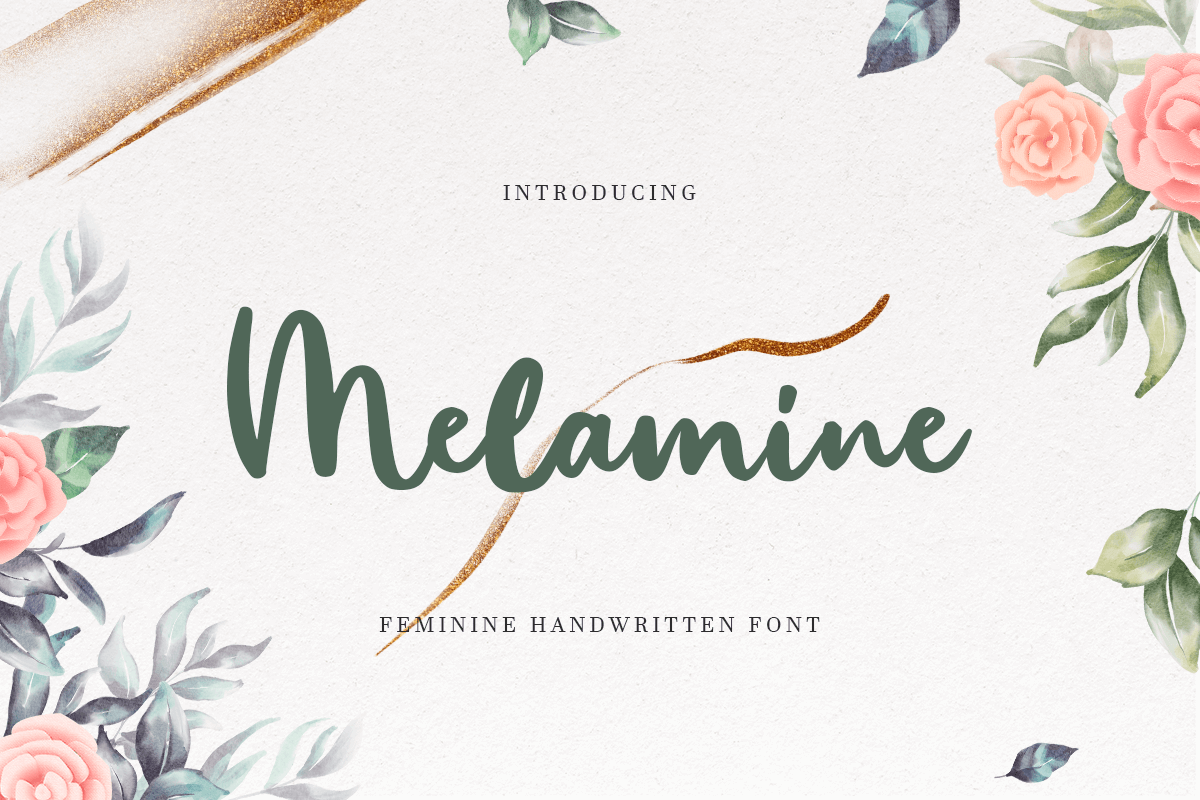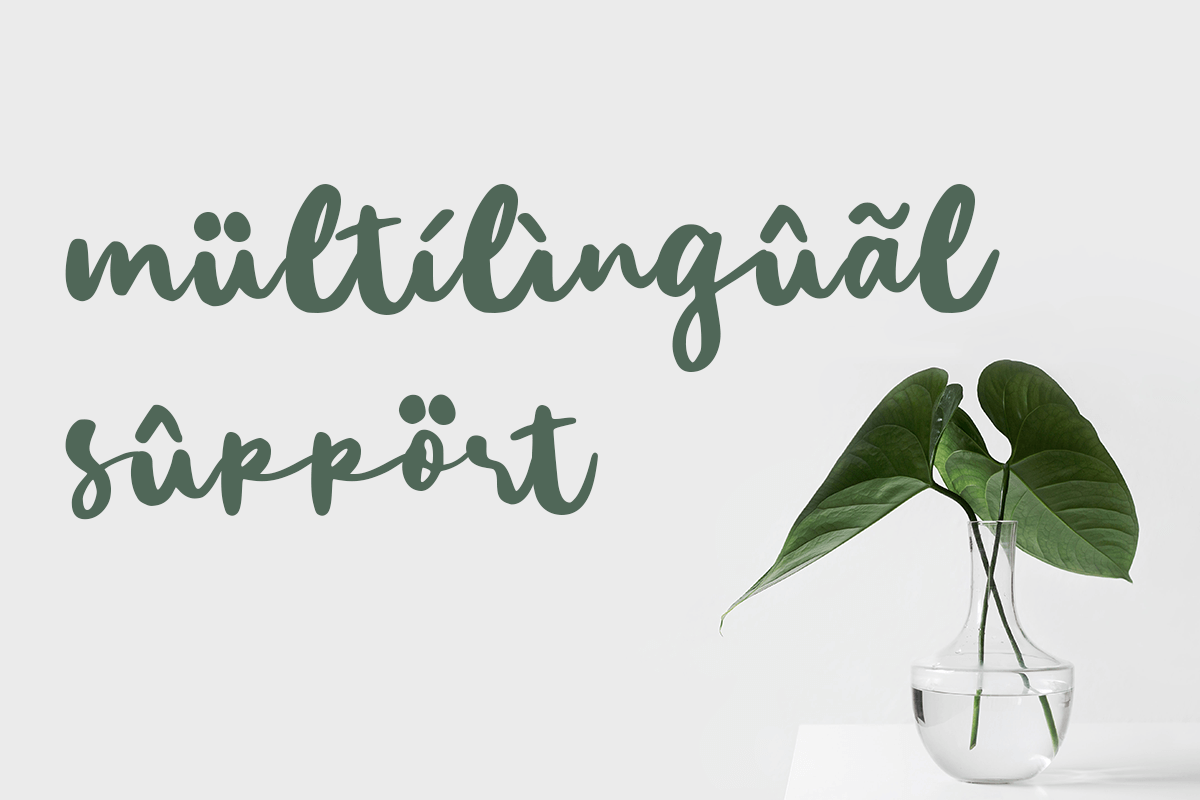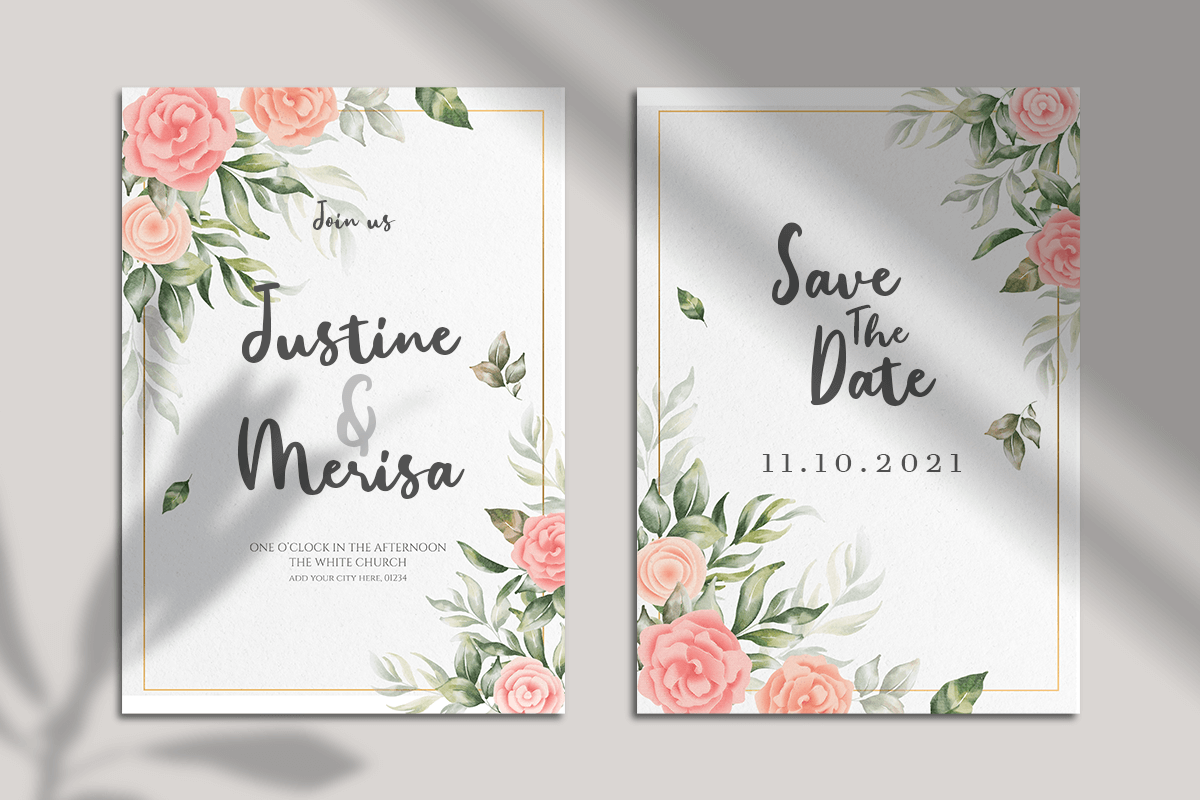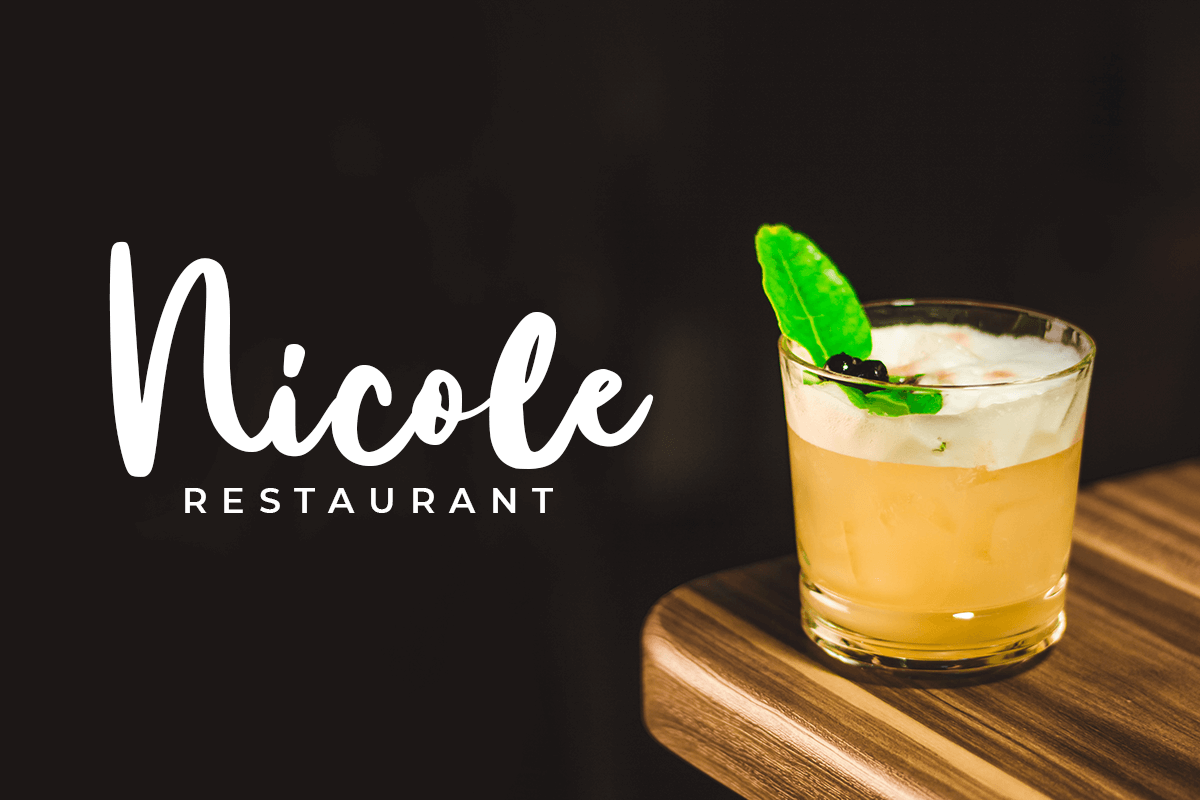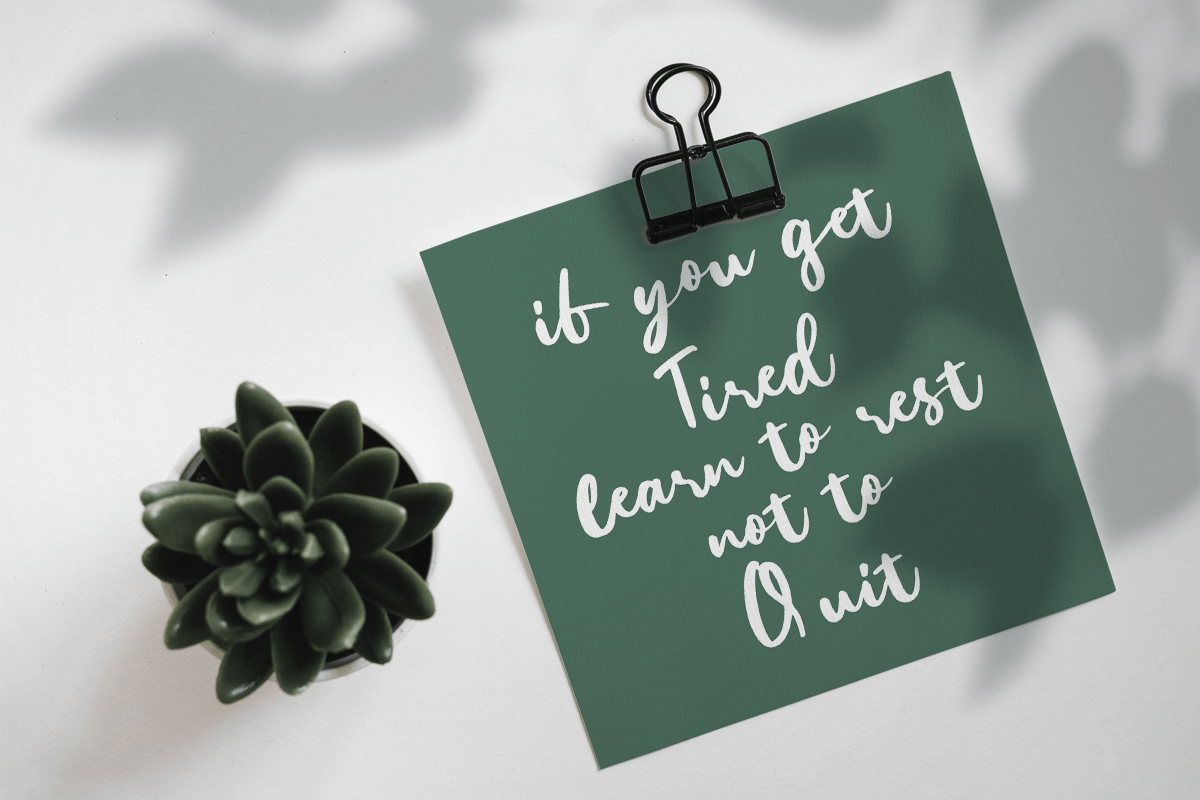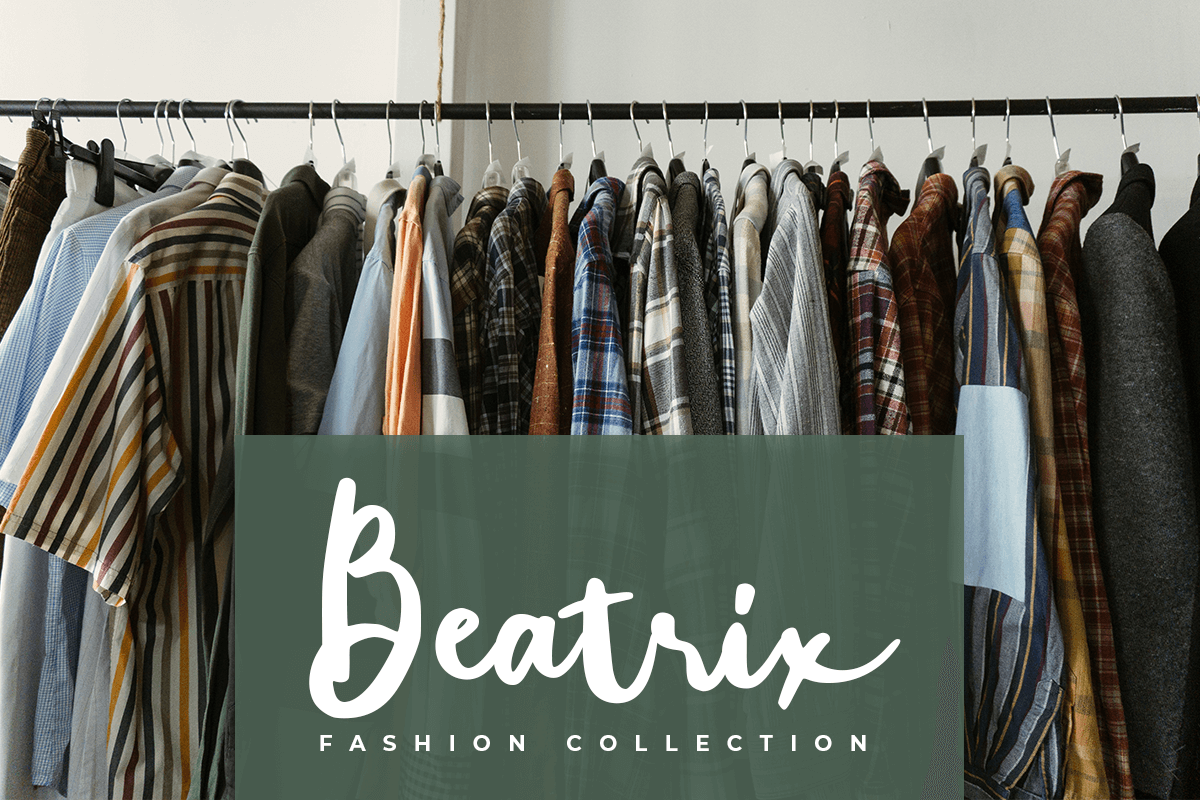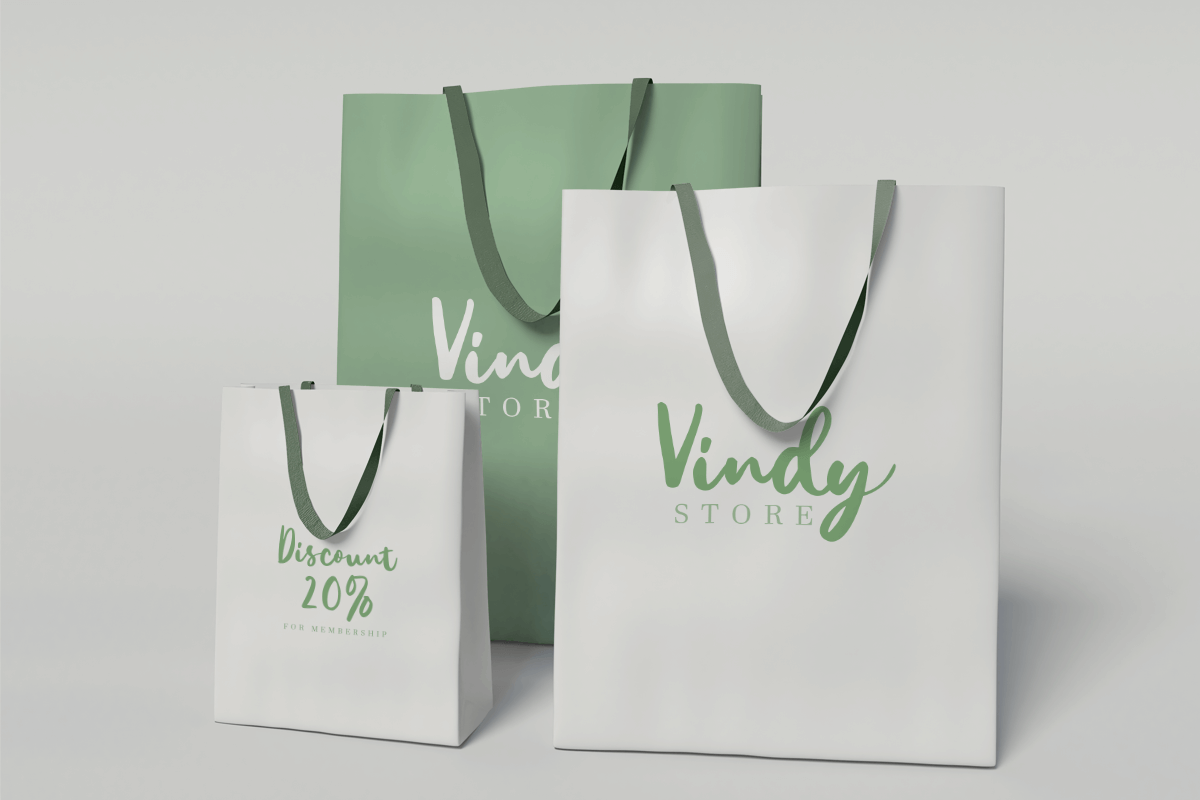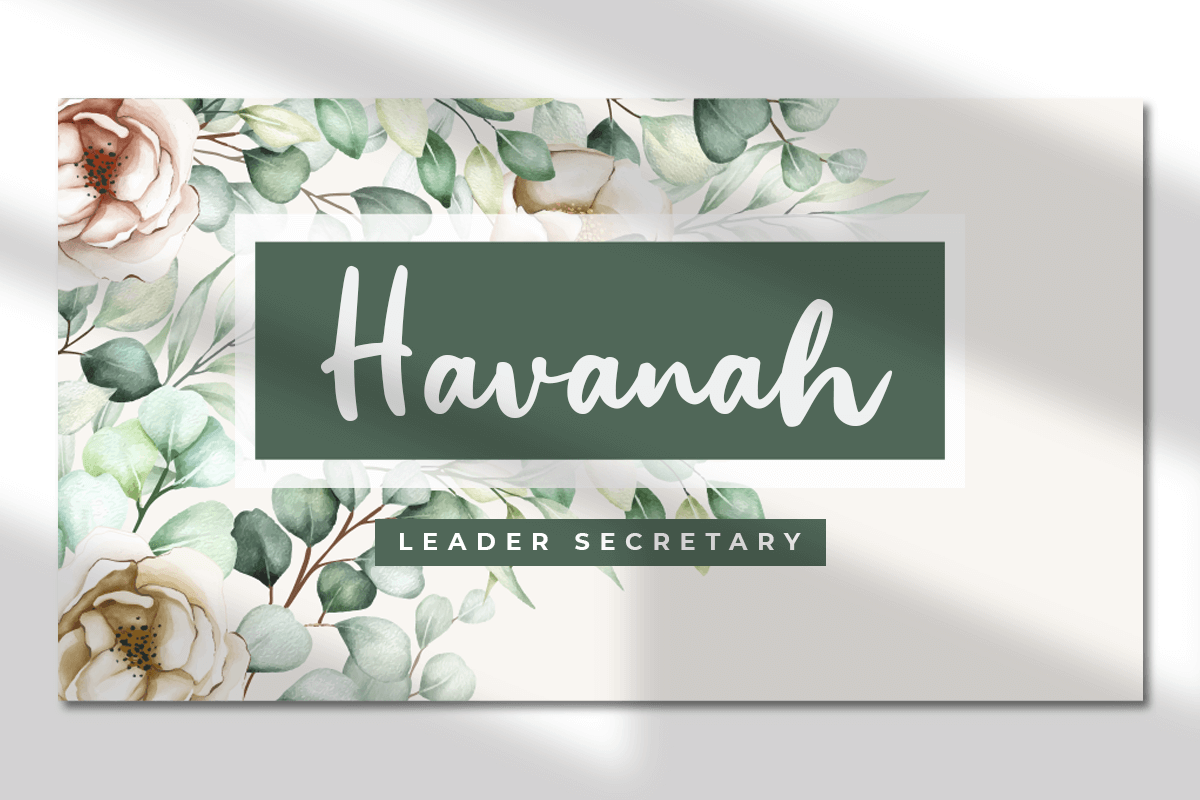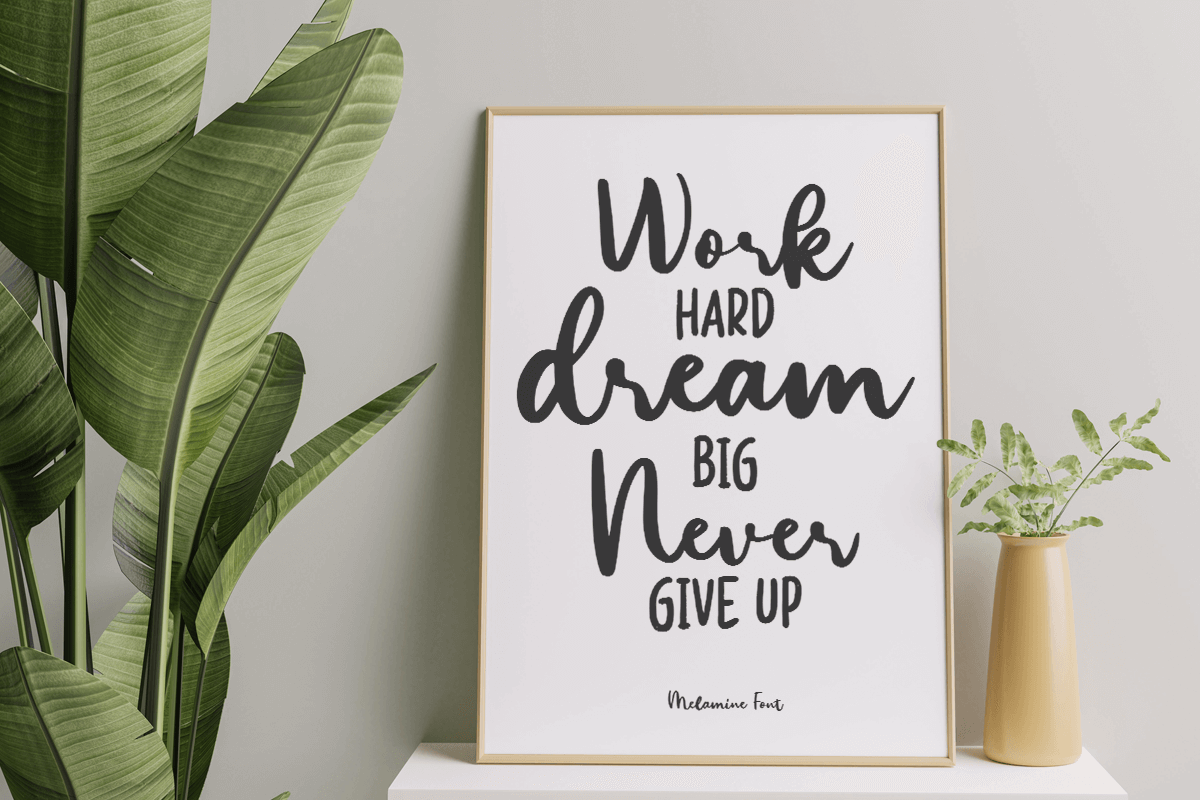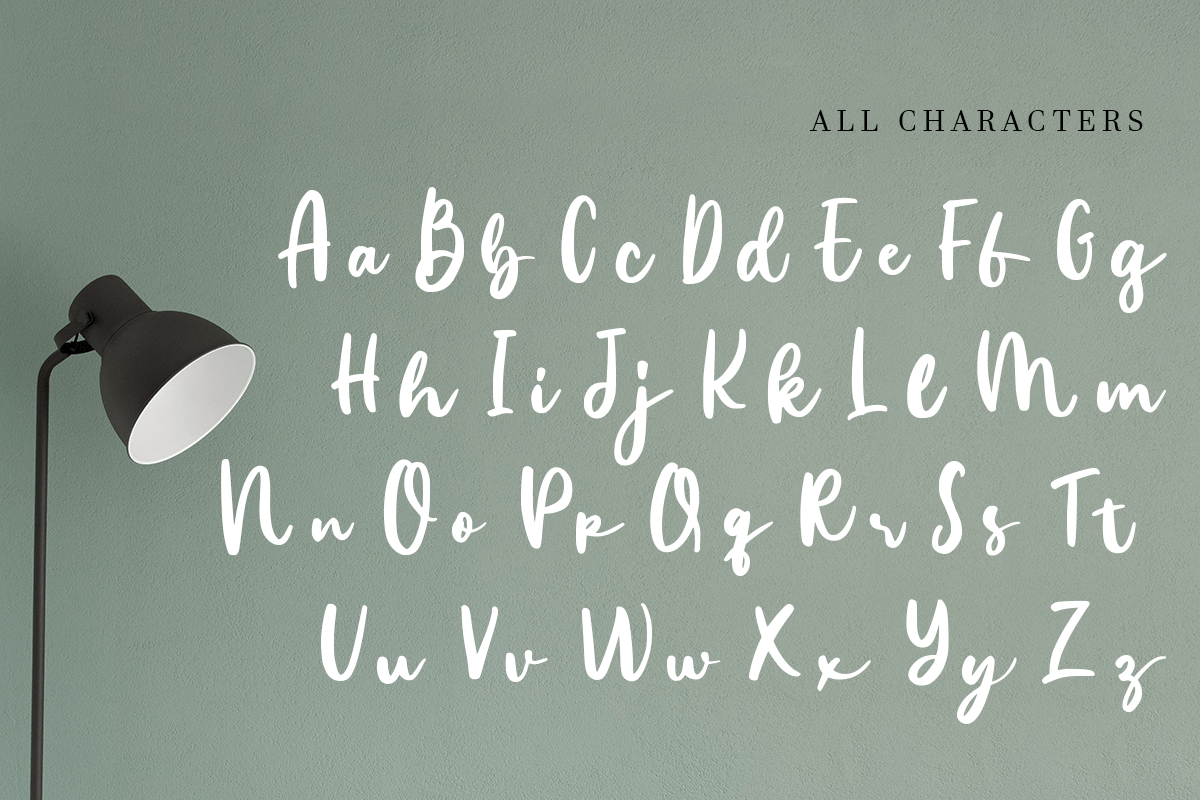
Melamine
-Feminine Handwritten Font
Melamine
Melamine is A Modern Feminine font with nice and modern style and so beautiful. This font specially crafted for your project design or professional logo, modern for any designs such as product, merchandise, and so many more with easy to use but unique results are so professional.
Enjoy to Design any your needs with cute, cheerful, and charming feel.